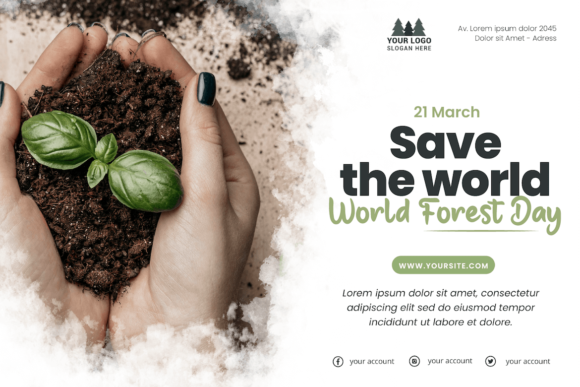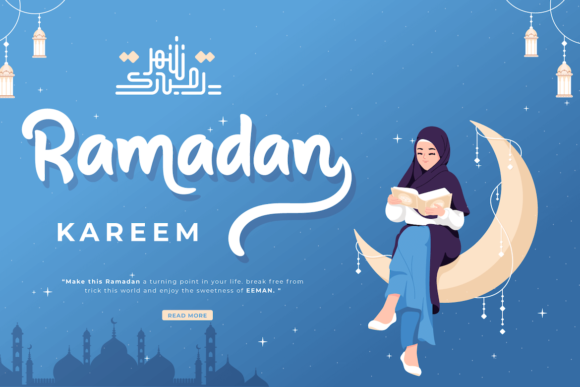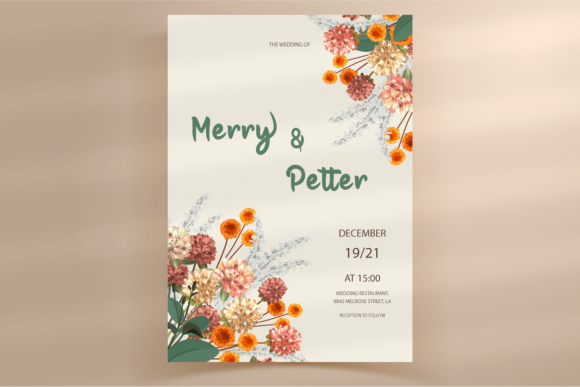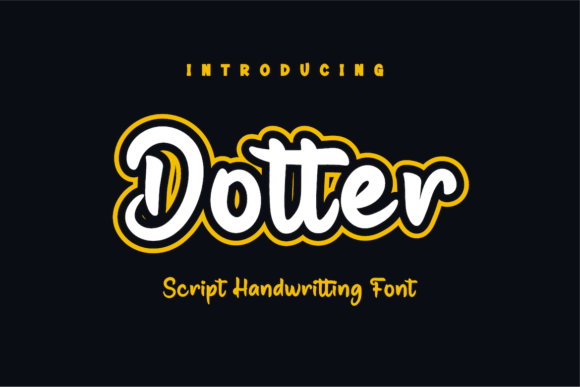
Introduction to Dotter Font
Dotter is a cool and stylish paint brushed handwritten font.
Whether you’re using it for crafting, digital designing, presentations or greeting cards making, it’s perfect .
Why Choose Dotter Font?
Dotter Font offers exceptional quality and versatility, making it a valuable addition to your design toolkit. Whether you’re creating for personal projects or commercial use, Dotter Font delivers professional results.